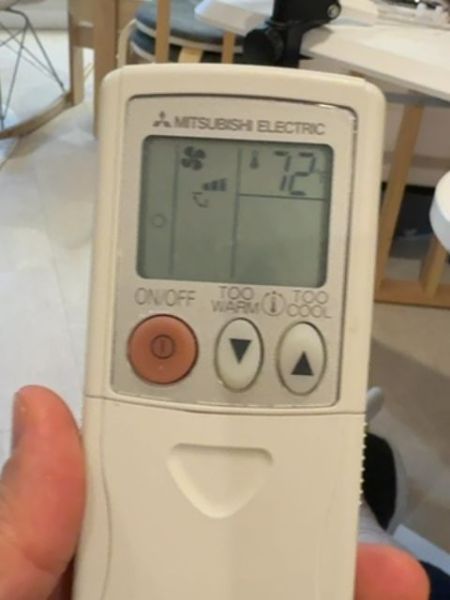
Mitsubishi Electric Remote Control
A remote control device for adjusting settings on Mitsubishi Electric air conditioning units.
The typography on the device features a clean and utilitarian sans-serif font that is easily legible, suiting the functional purpose of the remote control. The font size varies to emphasize different elements, such as the brand name and button labels.
The remote control has a compact, ergonomic design suitable for handheld use. It features a small display screen and essential buttons arranged for user-friendly accessibility.
- Manufactured by Mitsubishi Electric, a well-known Japanese electronics company.
- Commonly used with Mitsubishi air conditioning units.
- Allows remote adjustment of temperature and fan settings.